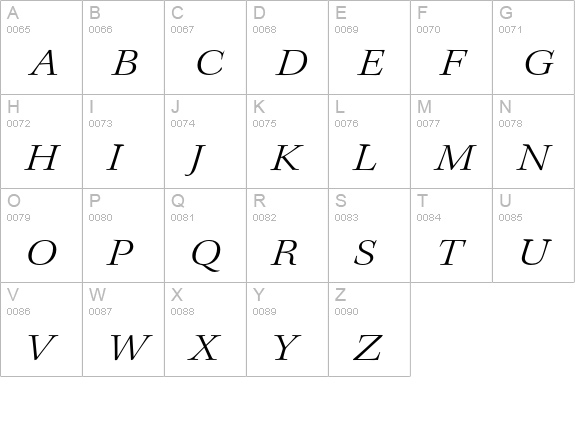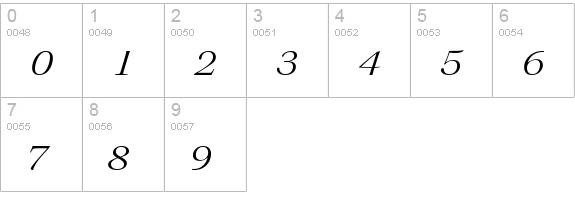
Kepler Std Light Extended Italic Subhead Font Details
Kepler Std Light Extended Italic Subhead is a refined, elegant, extended-width, italic variant in the Kepler typeface family \xE2\x80\x94 well suited to elegant body text, refined sub-headings, and luxury branding.
Kepler Std Light Extended Italic Subhead font is a beautiful and elegant typeface that exudes sophistication and grace. Its elongated and slanted letterforms add a touch of flair to any design, making it perfect for subheadings and other emphasis purposes. The light weight of this font brings a delicate and airy feel to your text, while the extended and italicized design provides a sense of dynamism and movement. The subtle curves and precise lines create a harmonious balance, ensuring legibility even at smaller sizes. Kepler Std Light Extended Italic Subhead font is versatile and can be used across various design projects, from editorial layouts to branding materials and beyond. It adds a touch of refinement and professionalism to any piece, elevating it to new heights. The best part is that Kepler Std Light Extended Italic Subhead font is available for free download at FontsMarket.com. Whether you're a professional designer or a hobbyist, you can access this stunning typeface without any cost. This generous offer allows you to enhance your designs with a high-quality font, without breaking the bank. So why wait? Download Kepler Std Light Extended Italic Subhead font today from FontsMarket.com and elevate your designs to new levels of sophistication and elegance.